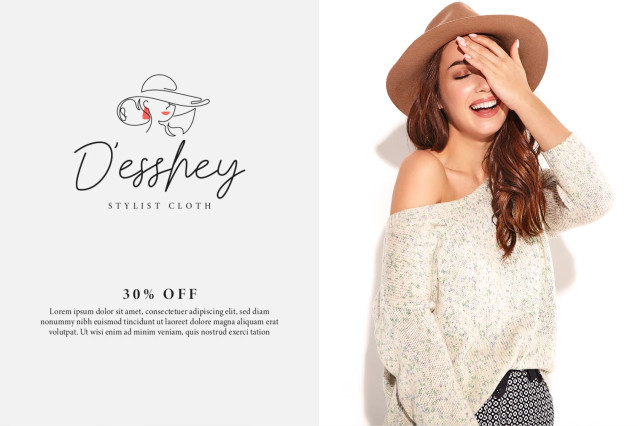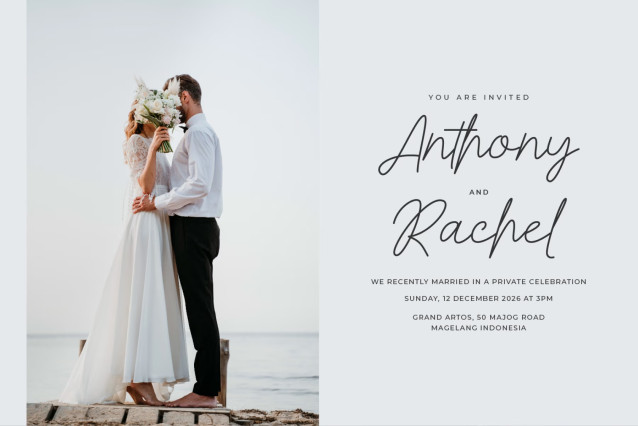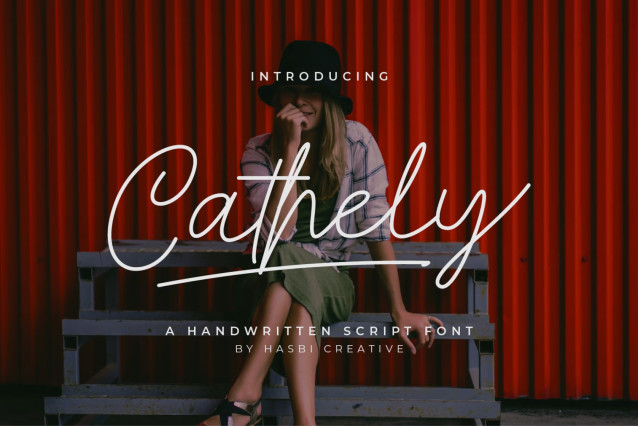
Introducing Cathely Script Handwritten, a captivating font that brings the charm and elegance of handwritten calligraphy to your digital creations. With its flowing strokes, graceful curves, and authentic handwritten style, Cathely Script Handwritten adds a touch of personalization and sophistication to any project.
Cathely Script Handwritten is a versatile font that can be used for a variety of purposes, including:
- Wedding invitations and stationery
- Logos and branding
- Marketing materials
- Social media graphics
- Product packaging
This font is:
- Authentic handwritten style
- Multilingual support
- Easy to use